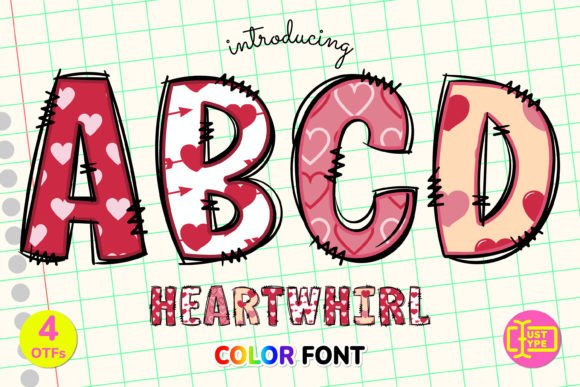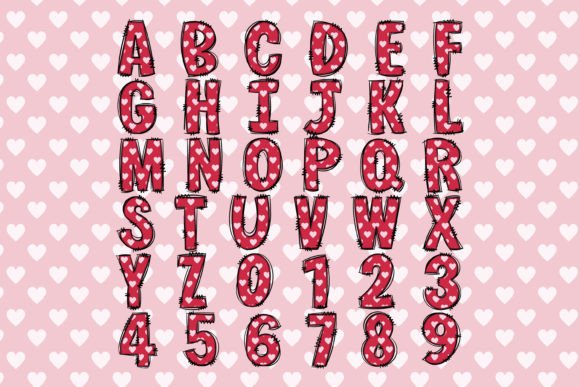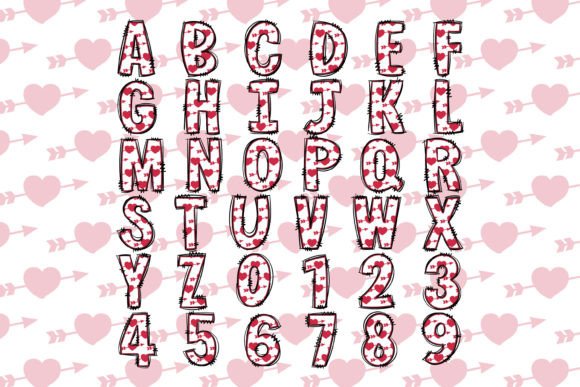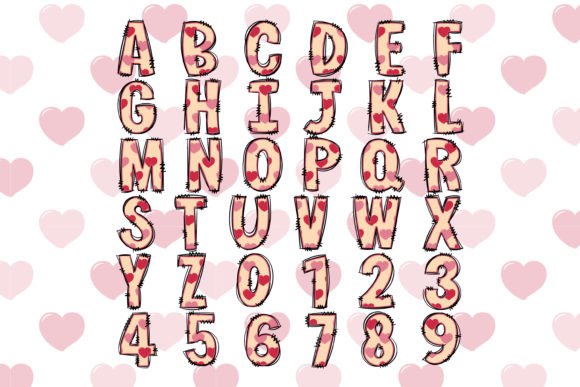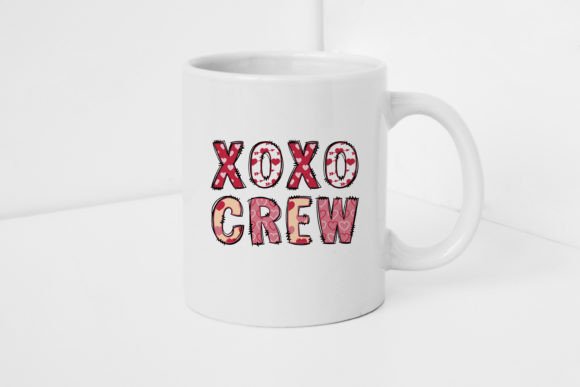
Heartwhirl Font
Introducing Heartwhirl, a captivating collection of 4 meticulously crafted Valentine-themed color fonts that seamlessly harmonize with each other. Whether used collectively or individually, these fonts serve as the perfect artistic touch to elevate your creative projects.
Immerse yourself in the playful world of hand-drawn doodle scribble outlines, where each stroke tells a festive tale. Accentuate your designs with vibrant color strokes, and discover the magic within meticulously filled details, featuring a carefully curated selection of elements and colors. Transform your crafts into a holiday masterpiece with the unique and enchanting charm of Heartwhirl.